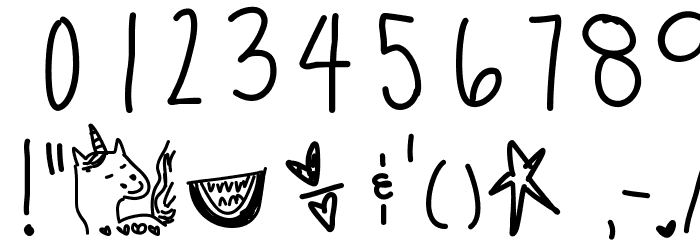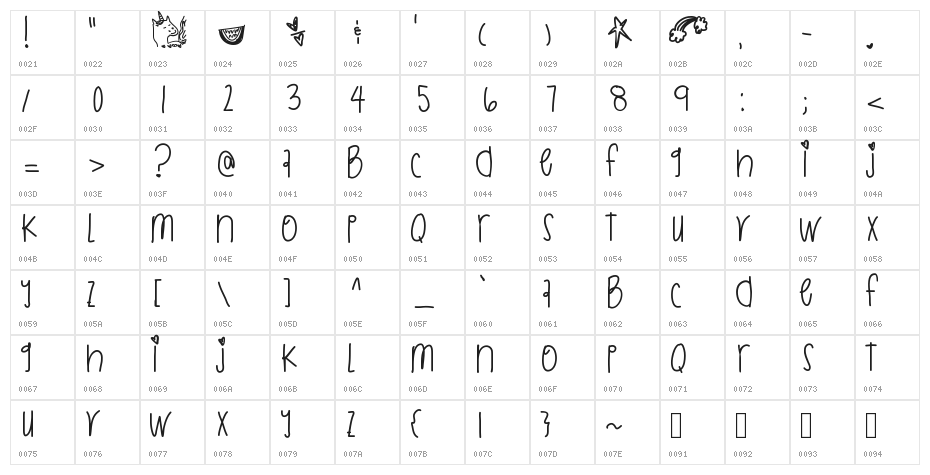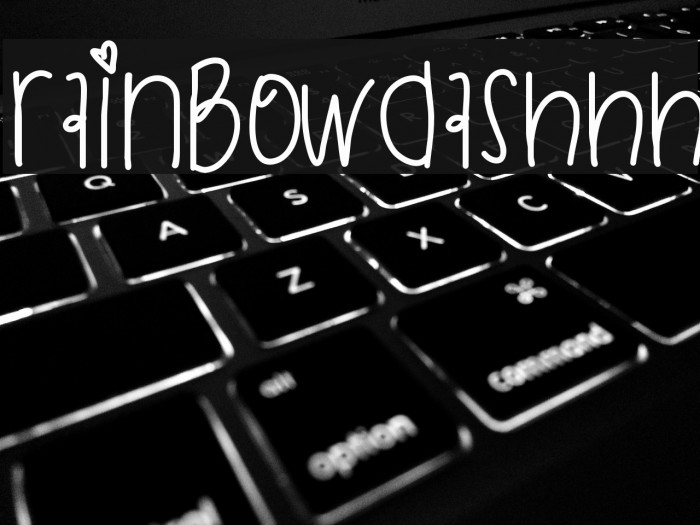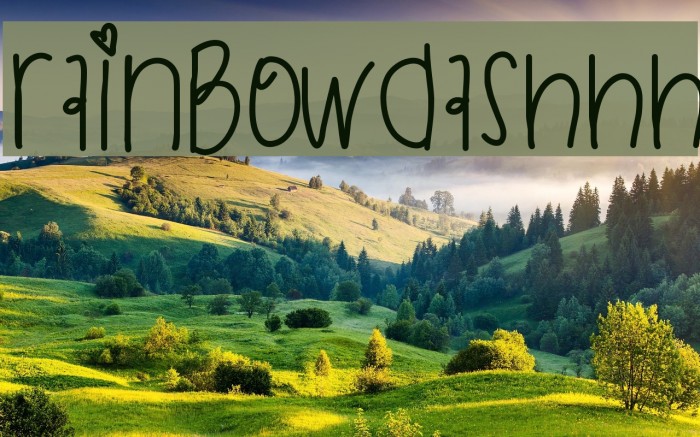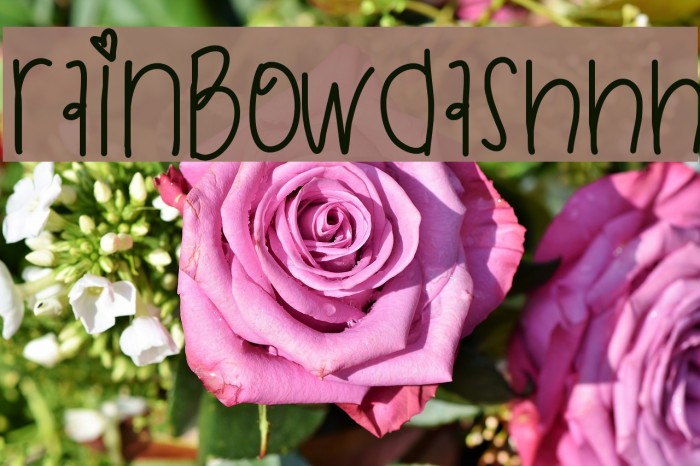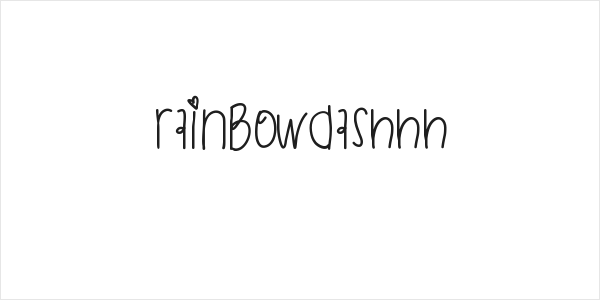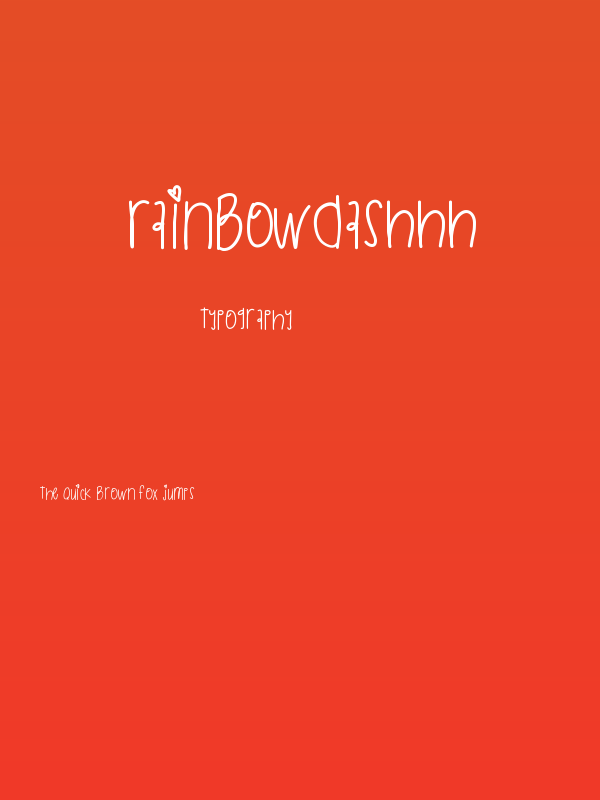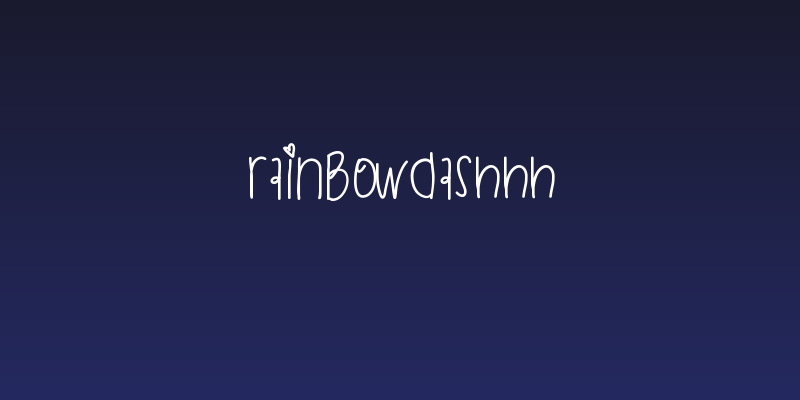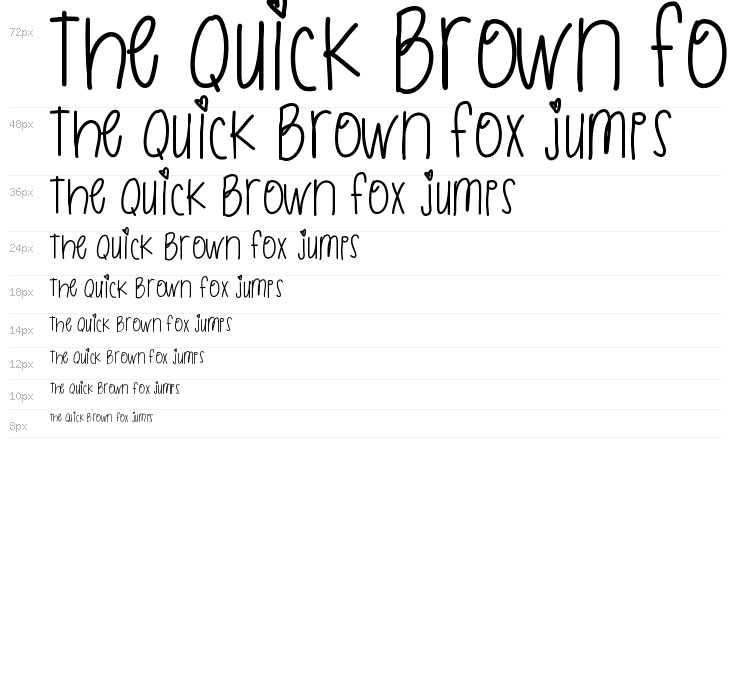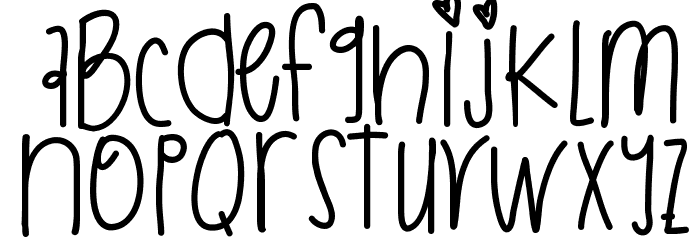
RainbowDashhh Font
RainbowDashhh Description
This playful and whimsical font features a handwritten style with a casual, friendly appearance. The letters are tall and slightly narrow, with a consistent stroke width that gives it a clean and approachable look. The uppercase and lowercase letters maintain a cohesive style, with rounded edges and a slight slant that adds to its informal charm. The numbers and special characters are designed to match the playful aesthetic, making it suitable for creative and fun projects. The font includes unique decorative elements like hearts and stars, enhancing its appeal for artistic uses.
| Proposed Projects | Ideal for children's books, greeting cards, playful branding, and creative social media graphics. |